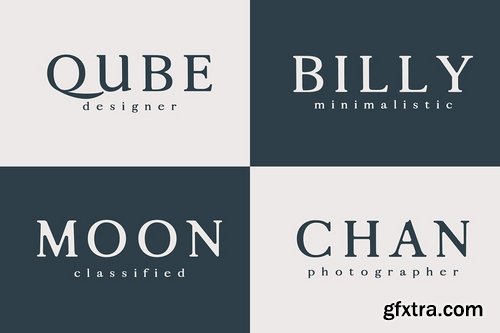
Calean is a modern and minimalist sans serif typeface. It comes with 3 weights: Regular, Round and Bold versions, which contains complete basic glyphs with multilingual support. Calean will be perfect for packaging, presentations, logo, headlines, lettering, posters, branding, quotes, titles, magazines headings, web layouts, advertising, invitations, packaging design, books, and nearly any creative design.